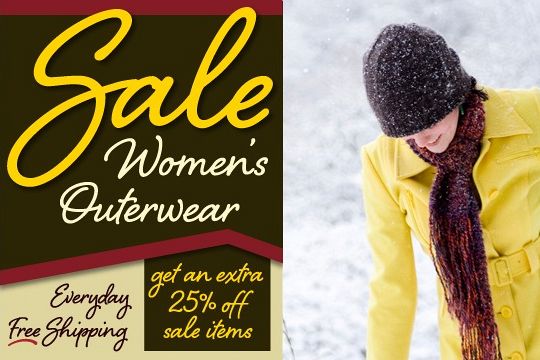
Shelby is friendly and casual; a monoline, semi-connected script typeface based on hand lettering. It has the natural appearance of handwriting, yet can be used to create appealing headlines, logos and eye catching call-outs. Shelby features ligatures, stylistic and contextual alternates, and 20 ornaments designed to complement its handwritten look.